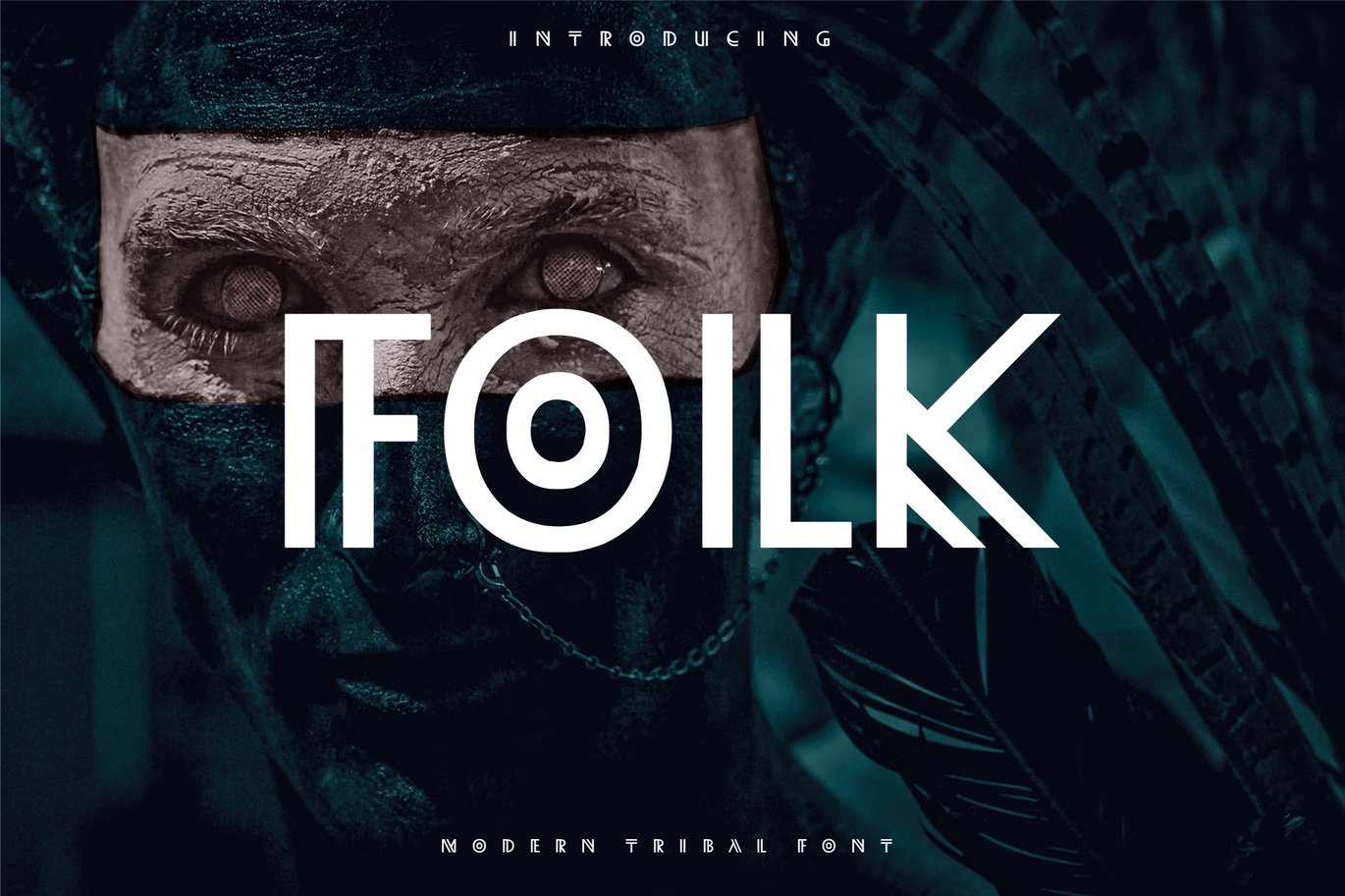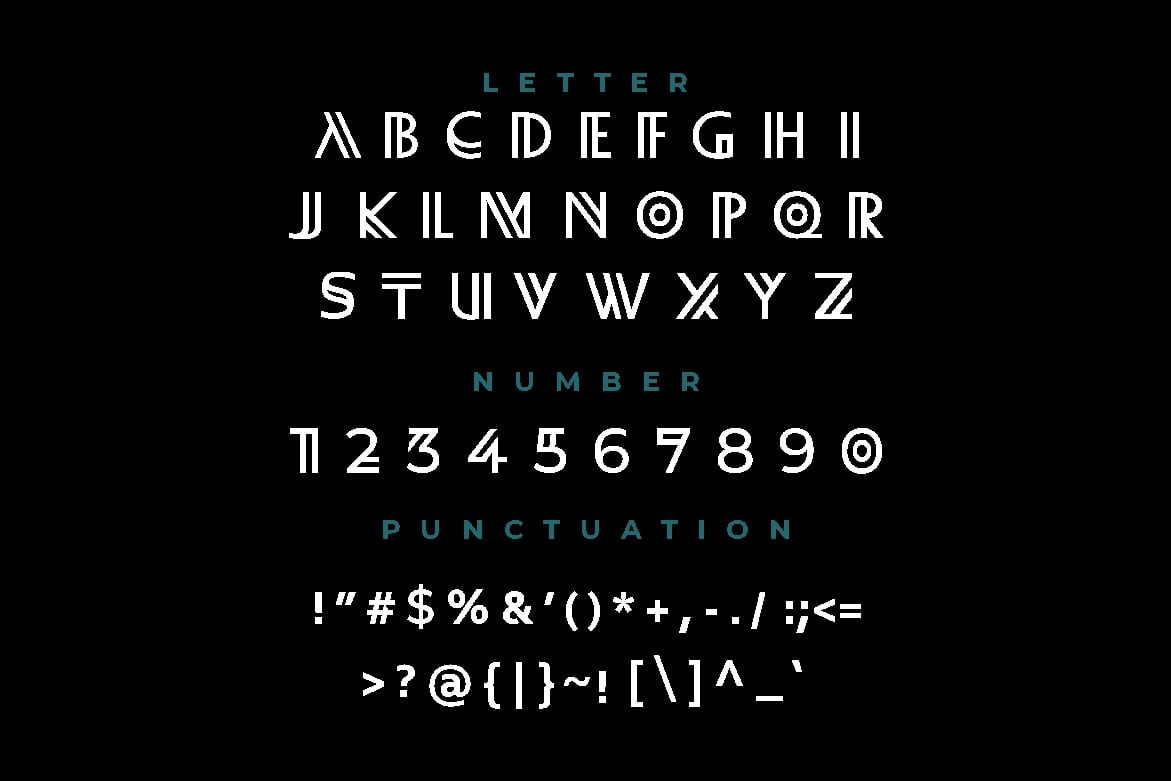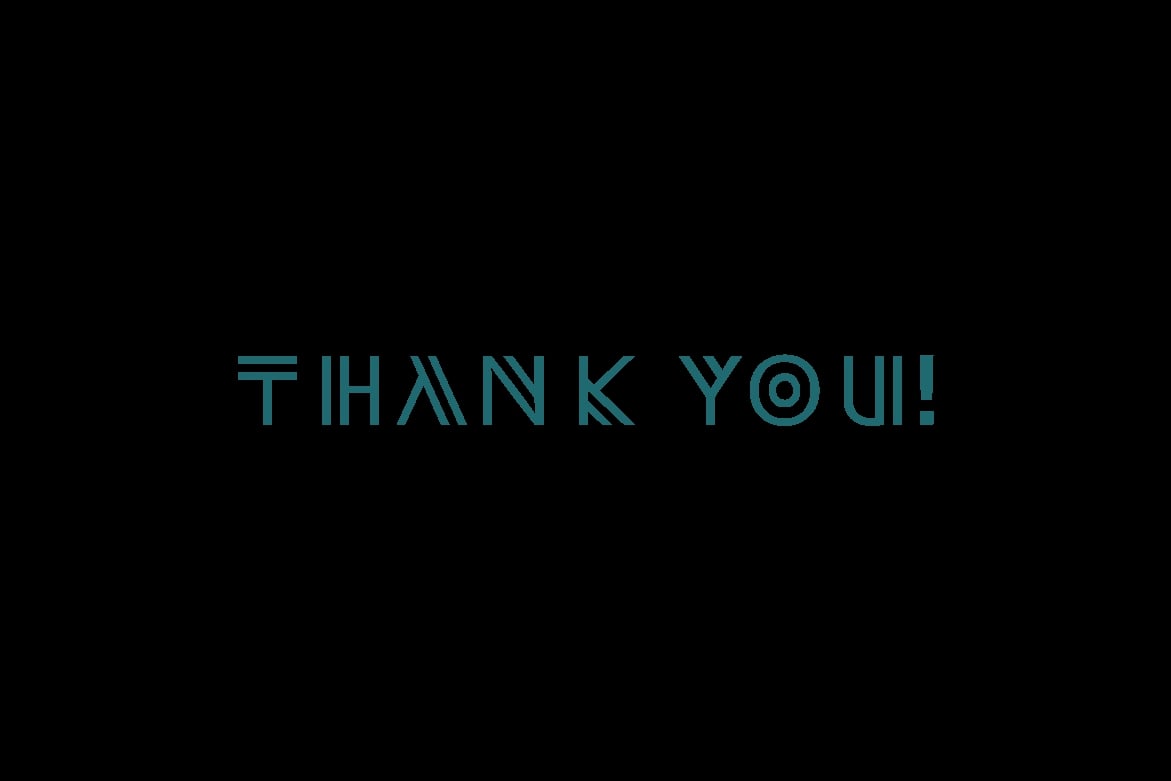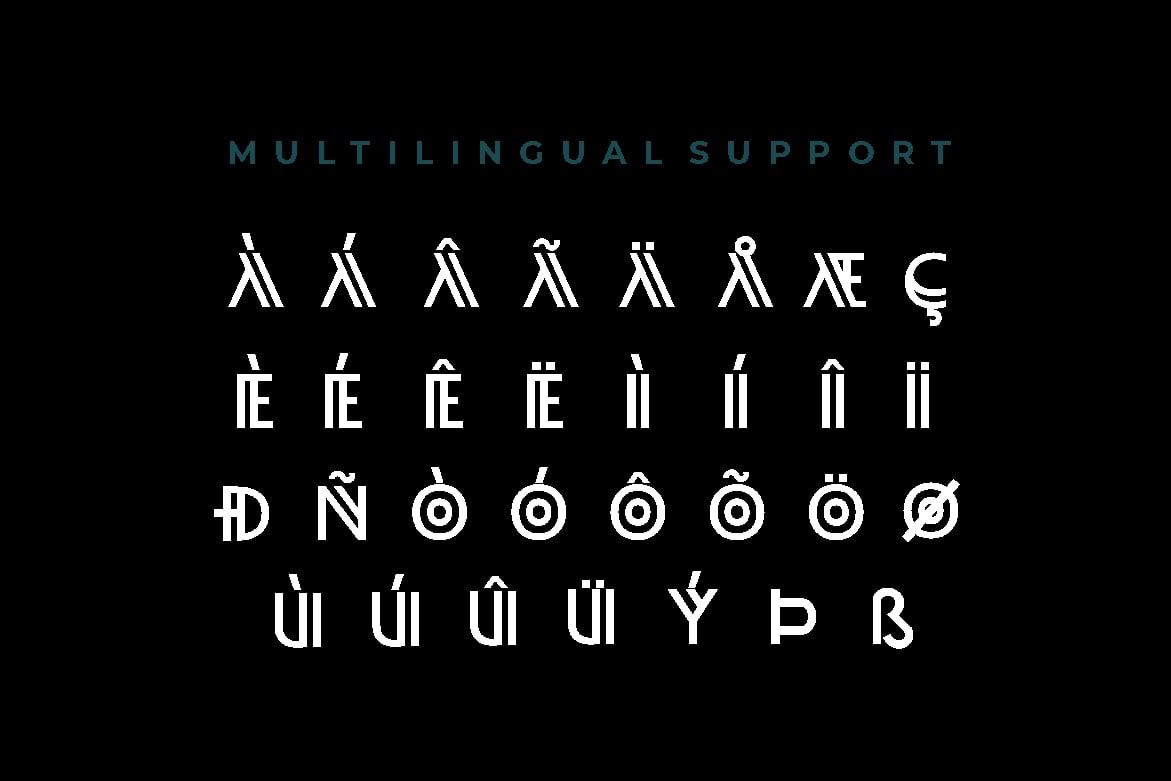
Folk – Modern Minimalist Tribal Font
FOLK typeface is a Font that combines classic and modern style fonts moderated with a touch of Tribal design in the same time, produces beautiful and elegant fonts. Very suitable various alternative styles that allow for logos, posters, covers, main packaging, t-shirts, business cards, wedding cards and more, so what are you waiting for?
The font comes with a basic set of latin characters in uppercase and lowercase in addition to special glyphs.